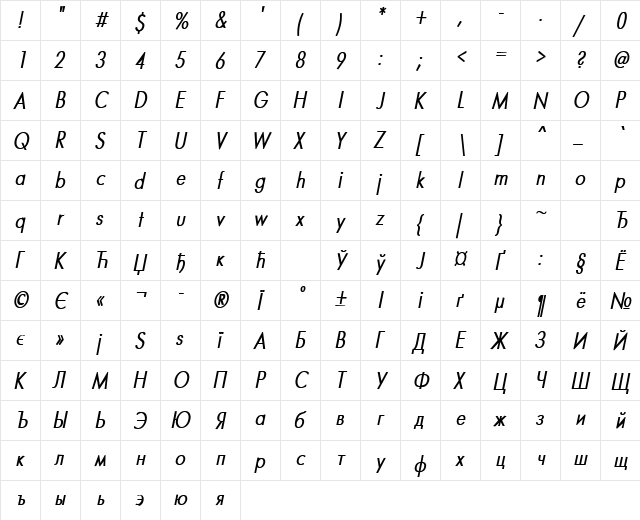
Futura Narrow BoldItalic Font Preview
Design Context for Futura Narrow Typeface
Futura Narrow has a distinctly futuristic character, with geometric precision and clean angles that feel at home in technology, gaming, and sci-fi contexts. The slanted form adds forward momentum and visual energy. Its bold stroke weight gives it real presence on the page. The condensed width makes it efficient for tight spaces without sacrificing legibility.